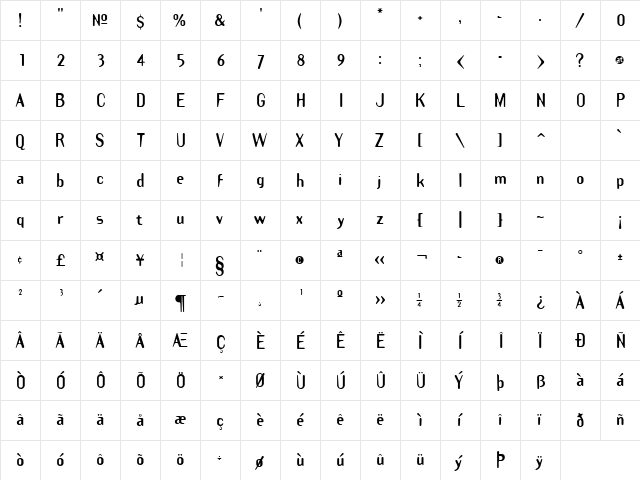
DraftPlateCondensed Black
Design Context for DraftPlateCondensed Typeface
DraftPlateCondensed offers clean, dependable letterforms without strong stylistic allegiance, making it a practical choice for designers who need flexibility. The condensed width makes it efficient for tight spaces without sacrificing legibility.